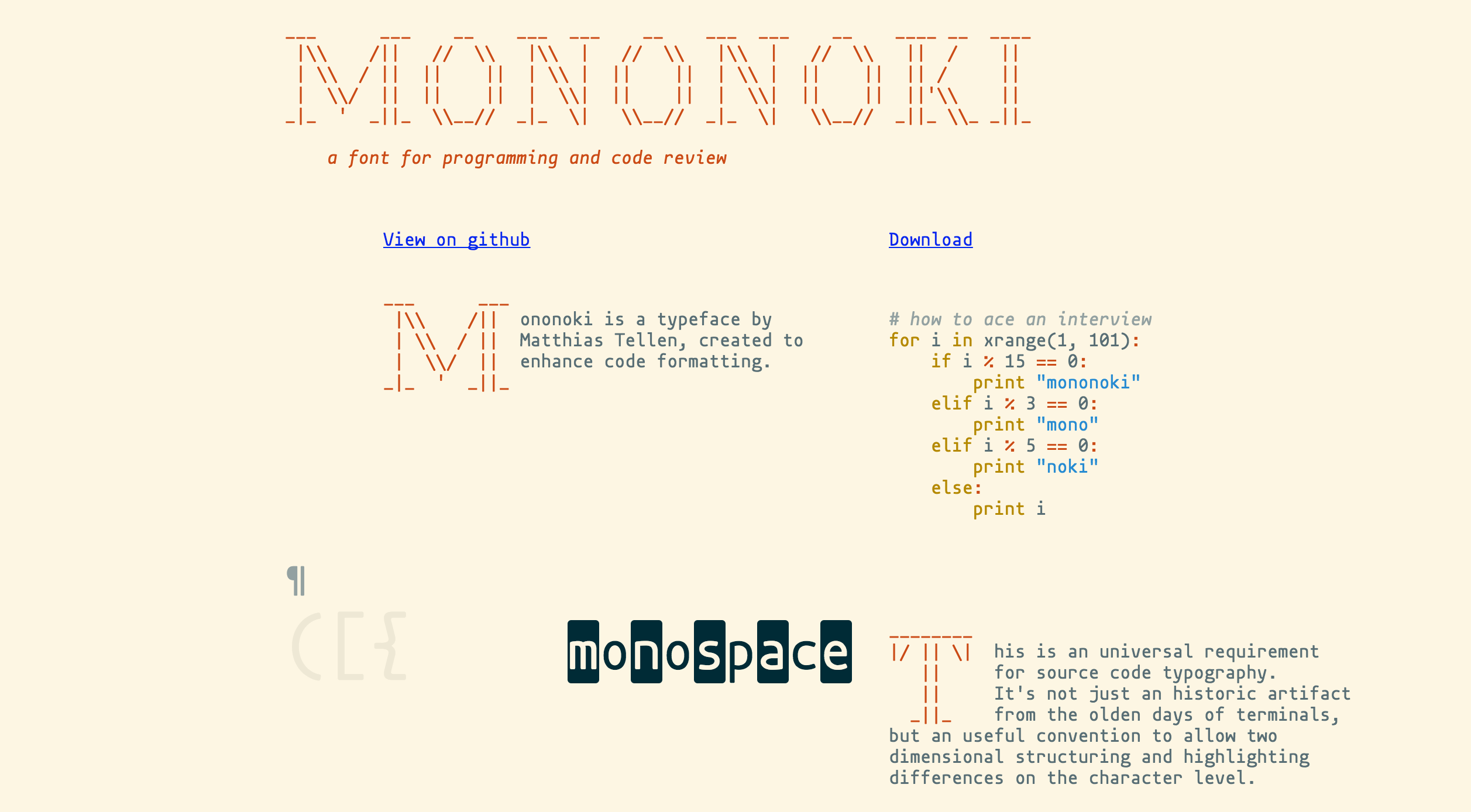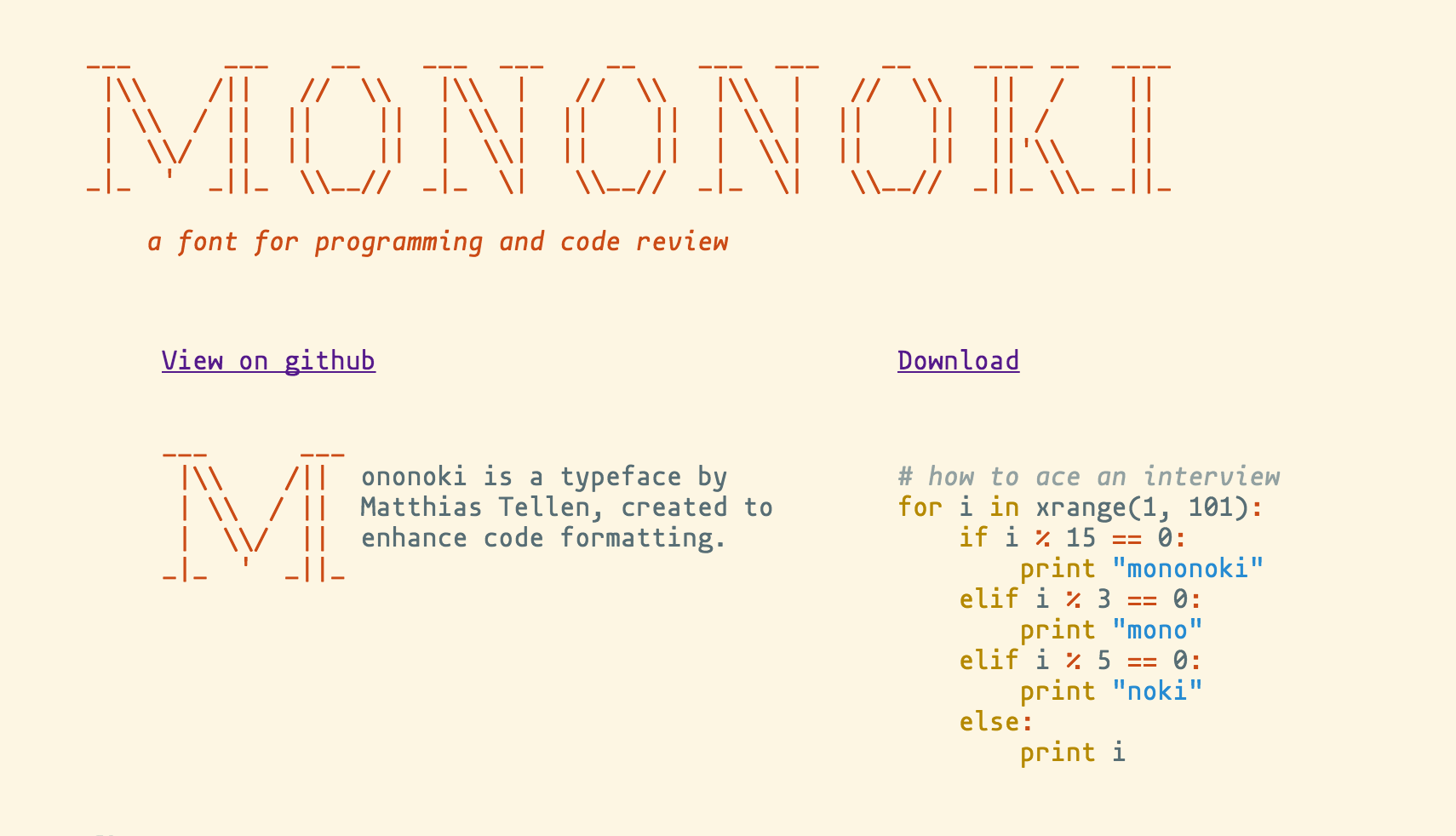
Mononoki Typeface
Font for programming and code review
So how is this better for programming than other fonts?
Will have to try this out with tmux + iterm3. I hope it's better than Hack font.